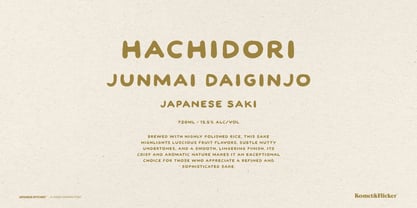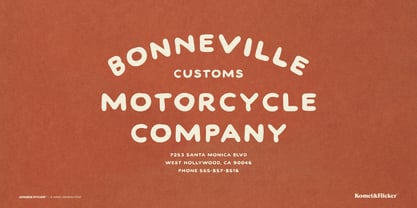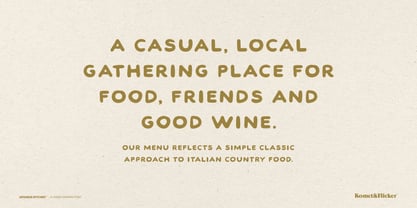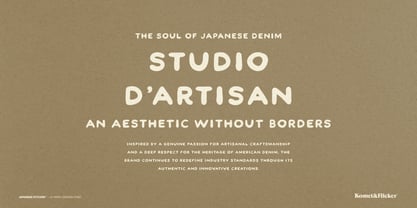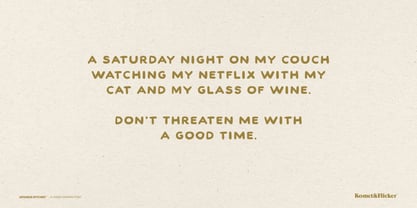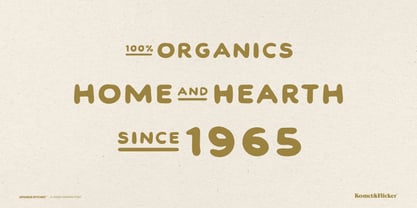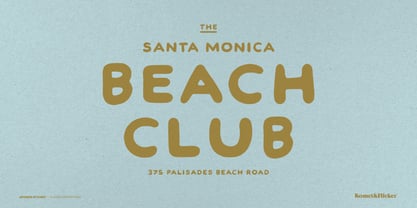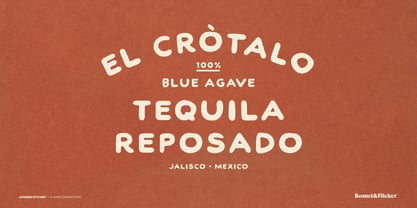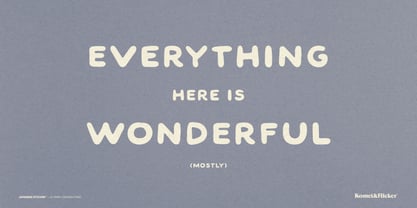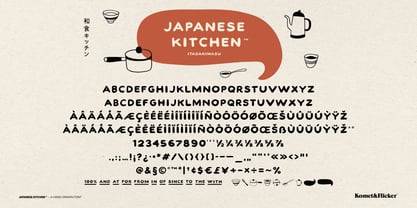
Japanese Kitchen
Introducing Japanese Kitchen, a charming, hand-drawn typeface that adds character and flair with handmade style and thoughtful design details.
This font features an all-caps design however the lowercase letters are a unique render, allowing you to mix uppercase and lowercase letters for a more natural, dynamic look.
Japanese Kitchen also comes with a set of 11 custom connecting word glyphs (ie: and, the, with). These additional glyphs can help you create flowing, cohesive text layouts that feel both authentic and fluid.
And for an extra dash of creativity, we've included a set of seven hand-drawn kitchen icons (plus two talk bubbles) used in these gallery images. From rice cookers to teapots, these icons are the perfect accompaniment to your designs, elevating the culinary theme and giving your project that special touch of hand-crafted warmth.
THIS FONT INCLUDES
- Full A-Z basic uppercase and lowercase latin characters
- Select European specific characters
- Numbers, punctuation, and select symbols
- Pre-made common fractions
- Set of 11 custom connecting word glyphs
- Nine hand-drawn kitchen themed icons